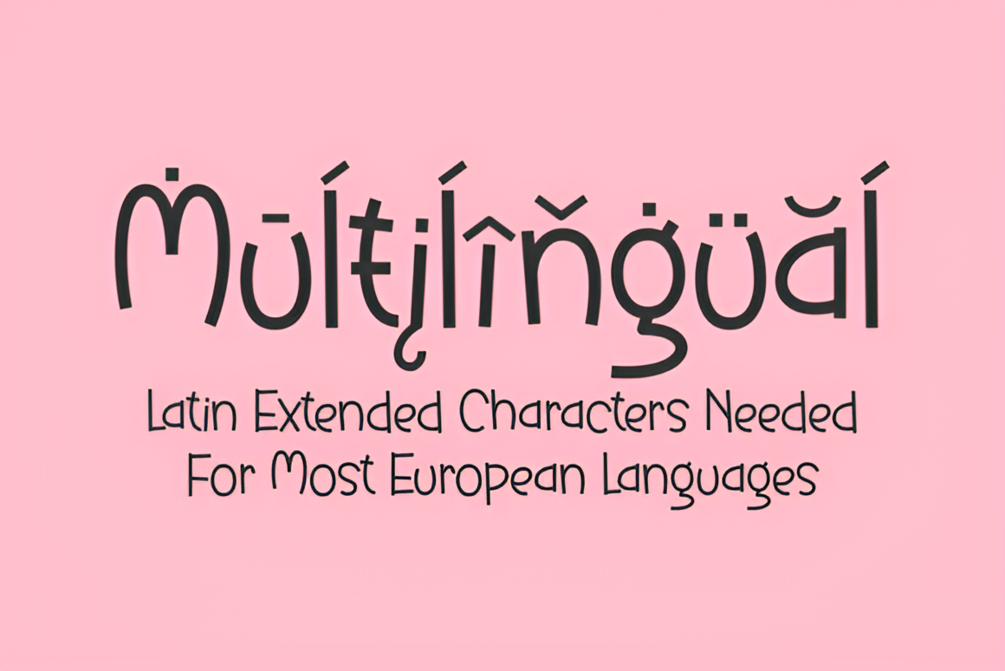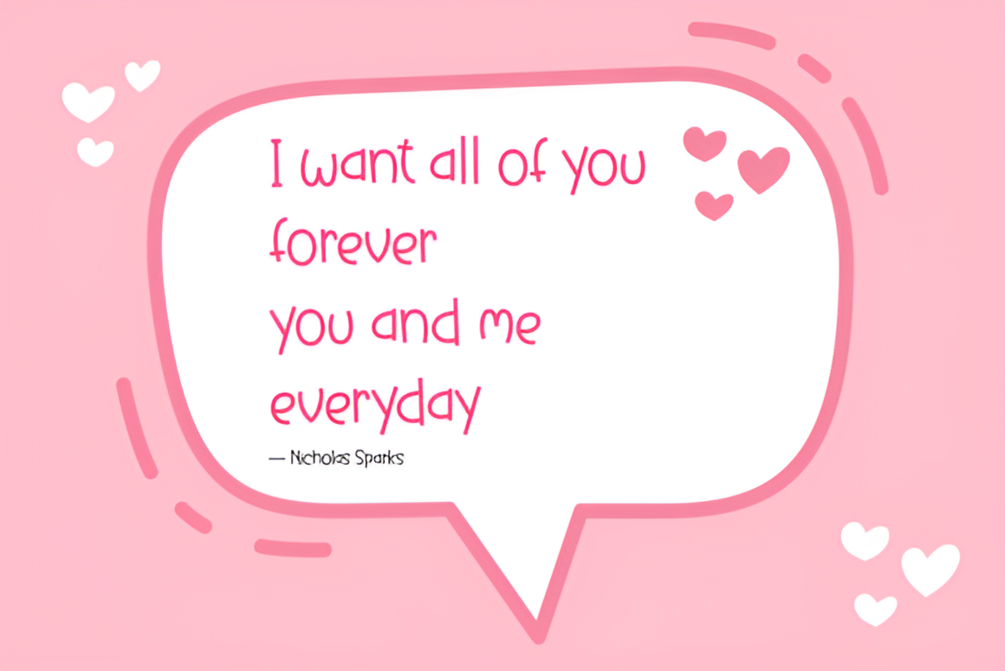
Before the Rainbow Display Font
Unleash a burst of joy and creativity with "Before the Rainbow," a whimsical display font that brings a touch of magic to every design.
Perfect for children-themed projects, this charming typeface is brimming with personality and fun.
Pair it with vibrant colors to truly make your designs pop and captivate your audience.
Add "Before the Rainbow" to your toolkit and elevate your creative work to dazzling new heights!
Before the Rainbow Display Font is a whimsical and playful typeface perfect for children-themed designs. Its quirky charm and vibrant appeal make it ideal for adding a touch of magic and fun to any project.